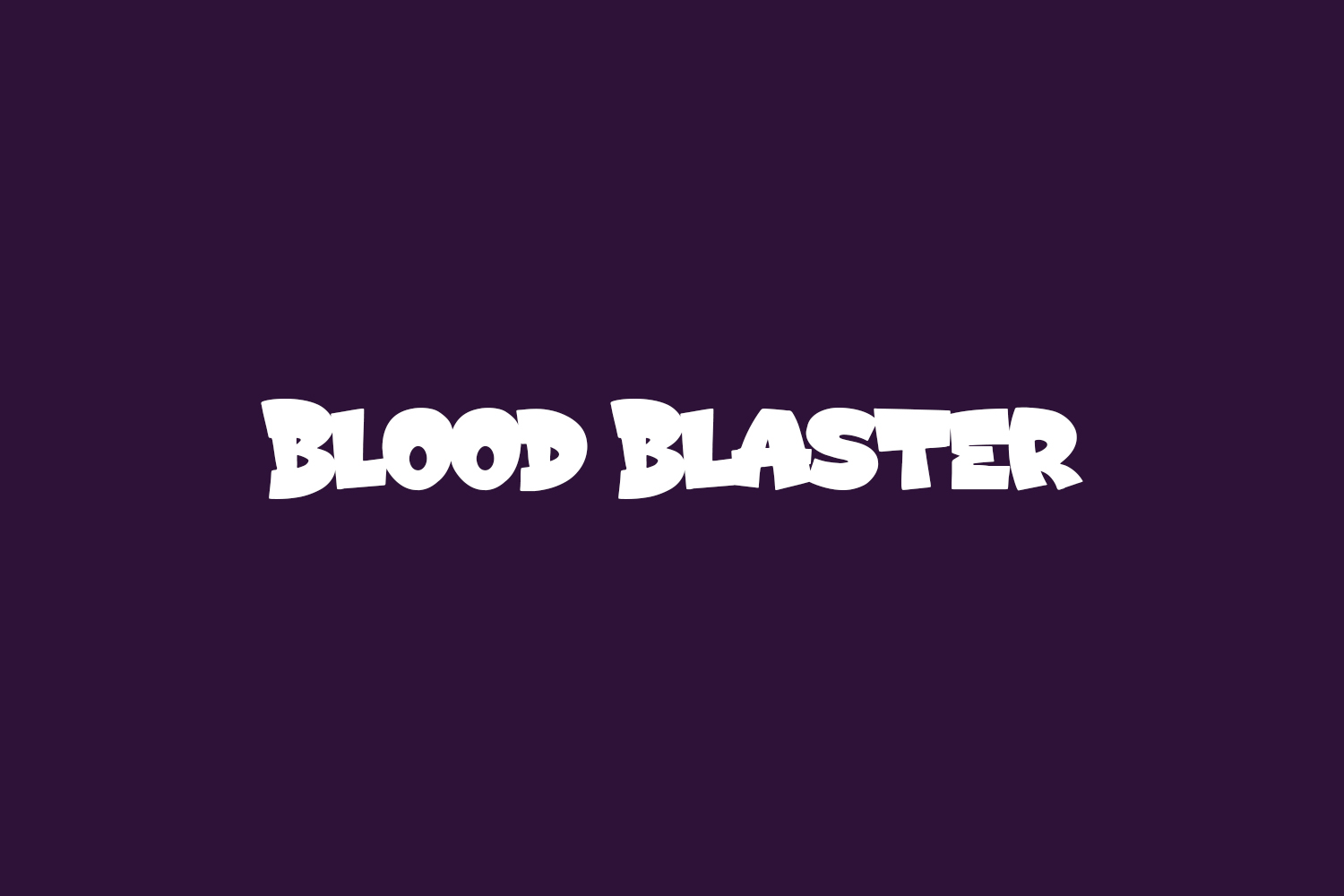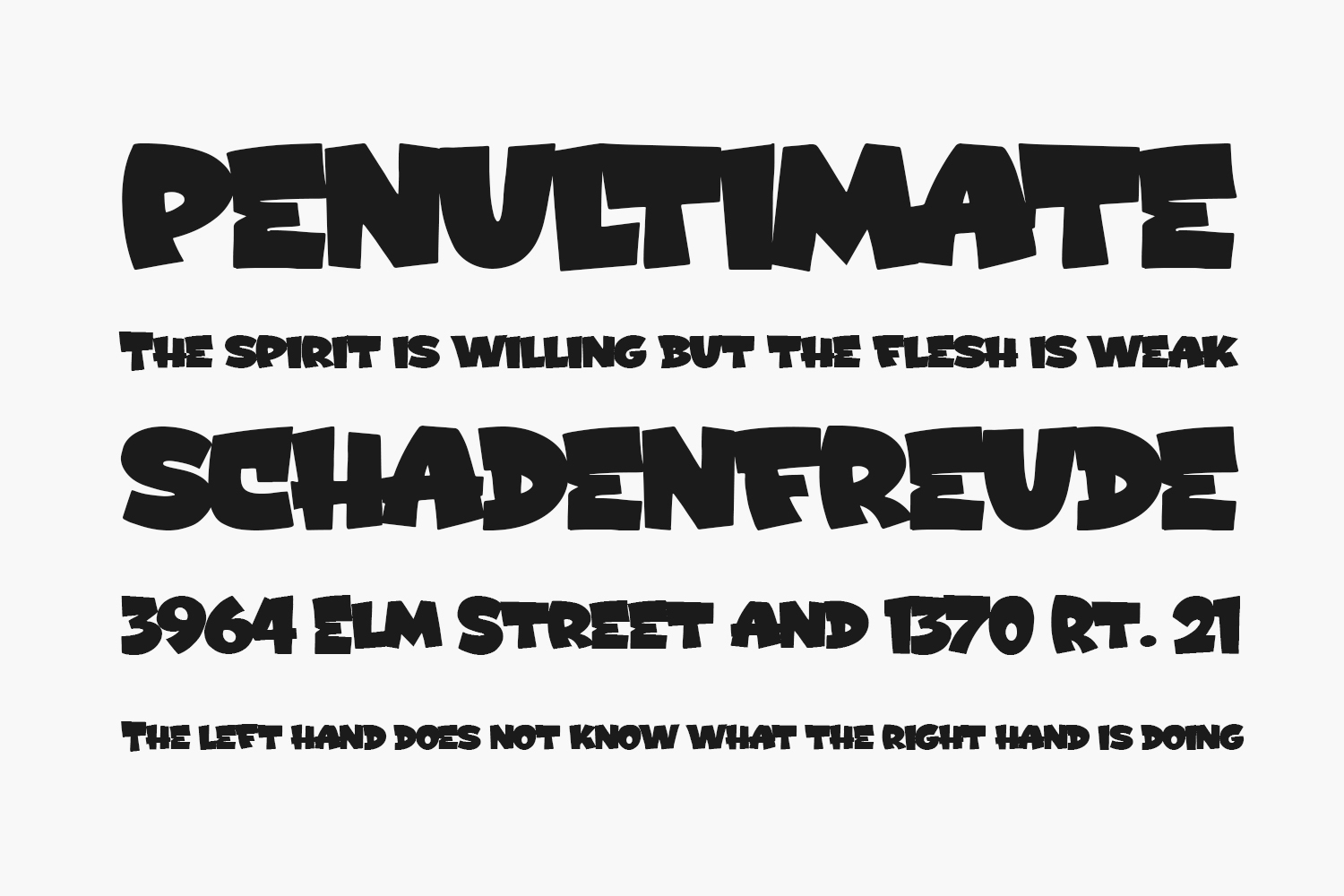
Blood Blaster Free Font Family is a cool, bold, and thick lettered display font. It embodies playfulness and authenticity and is the perfect choice for any children’s activity or school project. Blood Blaster Free Font Family was designed by Bangkit Tri Setiadi and is free for personal use only. Please purchase the full version for commercial use.
Blood Blaster Regular The quick brown fox jumps over the lazy dog
Blood Blaster Outline The quick brown fox jumps over the lazy dog